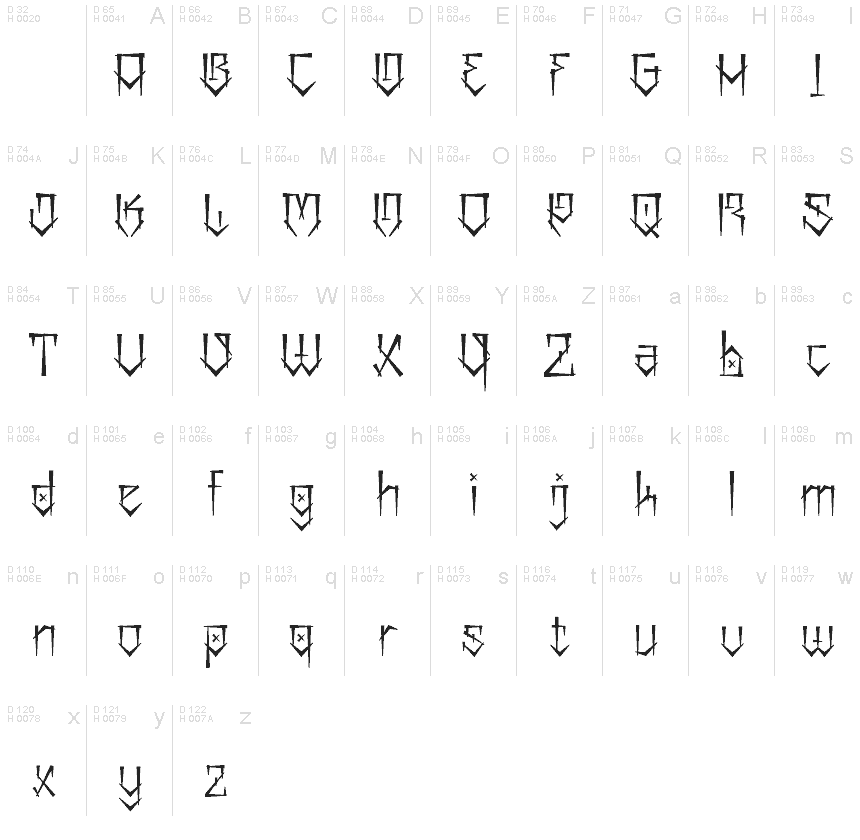
CS Decima Regular Demo
CS Decima font by Craft Supply Co. is a light display font with sharp angles and a unique structure. Geometric, abstract, and gothic-inspired, this typeface has an edgy feel with mysterious allures that remain unforgettable.